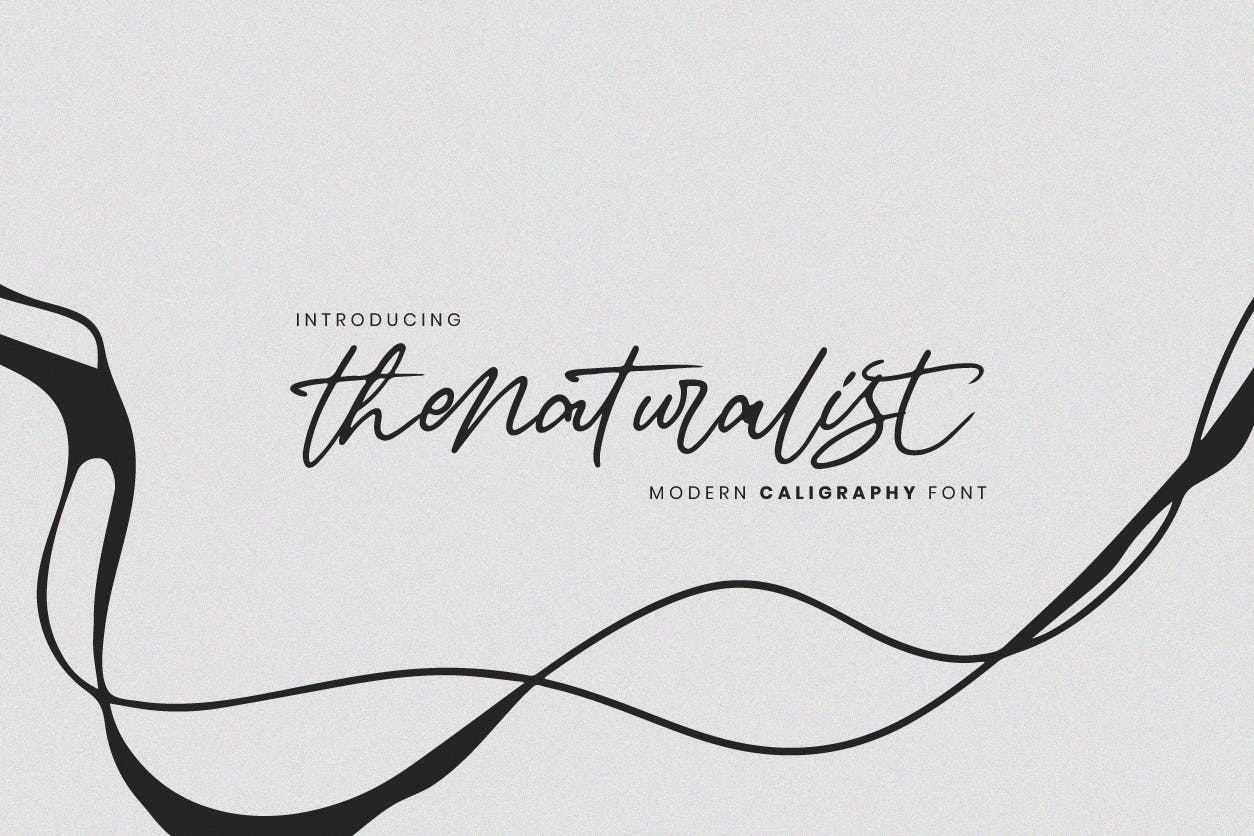
Thenaturalist Caligraphy Wedding Font
The Thenaturalist Calligraphy Wedding Font excels in organic design applications including natural wedding invitations, botanical bridal branding, eco-friendly ceremony logos, organic product packaging, nature-inspired business cards, natural portfolios, botanical greeting cards, earthy social media graphics, outdoor event signage, and sustainable marketing materials. Its natural calligraphy style makes it perfect for projects requiring organic elegance that communicates earth connection and establishes eco-friendly brand positioning with audiences seeking natural wedding experiences and botanical sophistication.
What makes the Thenaturalist Calligraphy Wedding Font truly exciting is its exceptional ability to capture the organic beauty and natural harmony of botanical weddings through authentically crafted letterforms. The font features flowing, nature-inspired strokes with botanical flourishes and organic proportions that create a distinctly natural appearance. Each character displays masterful attention to botanical detail with organic curves, natural connections, and earthy spacing that give text a genuinely hand-lettered quality. The font's natural character and botanical rhythm create an atmosphere of earth harmony while maintaining elegant sophistication and wedding authenticity.
The Thenaturalist Calligraphy Wedding Font family typically includes regular weight with extensive character coverage, featuring uppercase and lowercase letters, numerals, punctuation marks, and international characters. The typeface often incorporates stylistic alternates, contextual ligatures, and botanical swashes that enhance its signature naturalism. These additional elements provide designers with creative flexibility to customize text appearance and achieve more natural-looking organic handwriting that reflects the font's botanical and natural character.
This organic signature font distinguishes itself through its remarkable balance of natural charm and sophisticated elegance. Unlike artificial or synthetic fonts that lack earth connection, Thenaturalist Calligraphy Wedding Font embraces the power of natural design to create authentic connections with eco-conscious wedding audiences. The font's botanical character makes it essential for eco-friendly wedding planners, natural brands, and sustainable celebration businesses where creating organic wedding experiences and natural memories is fundamental to success in eco-conscious wedding markets.
The Thenaturalist Calligraphy Wedding Font Free Download presents designers with an outstanding opportunity to incorporate organic elegance into their natural wedding projects. From eco-friendly wedding venues to botanical celebration brands, this font delivers the natural signature aesthetic that resonates with couples seeking authentic and organically sophisticated wedding experiences. Its botanical appeal ensures your designs communicate earth harmony while the signature styling adds distinctive personality that reflects natural romance and botanical sophistication in any application requiring organic typography solutions.